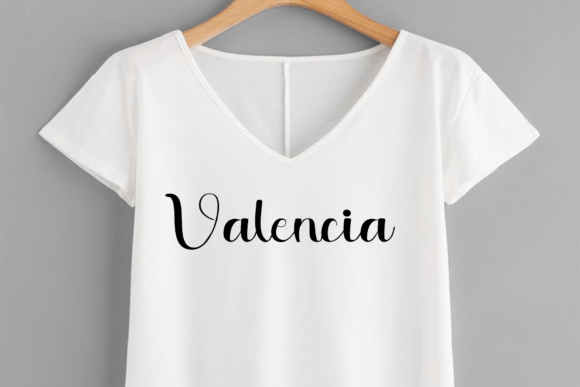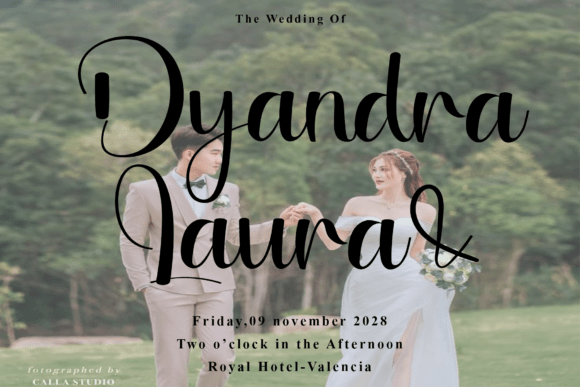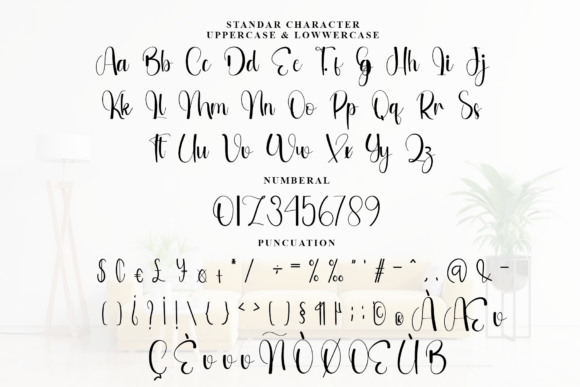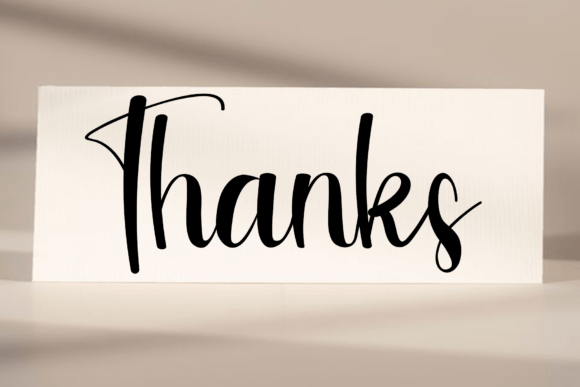
Introducing Hay Magnolia Font: A Bold and Sturdy Handwritten Typeface
Are you looking for a font that combines organic charm with a strong typographic presence? Look no further than Hay Magnolia Font, a bold and sturdy handwritten typeface that’s perfect for designers and crafters seeking a unique and professional look. In this article, we’ll explore the features and benefits of Hay Magnolia Font, and how it can elevate your branding, packaging, and design projects.
The Characteristics of Hay Magnolia Font
Hay Magnolia Font is a standout typeface that boasts thick, solid strokes with a distinct “bouncy” rhythm, giving it a friendly and approachable character. Its well-balanced proportions ensure it remains impactful even in busy designs, making it an excellent choice for a wide range of applications. As part of the “Unique and Professional” collection, Hay Magnolia Font is designed to bring a touch of handmade charm to your projects while maintaining a sophisticated and polished look.
Ideal Applications for Hay Magnolia Font
So, what types of projects are best suited for Hay Magnolia Font? This versatile typeface is perfectly suited for:
- Outdoor lifestyle branding: Hay Magnolia Font is an excellent choice for outdoor gear, apparel, and equipment brands that want to convey a sense of adventure and ruggedness.
- Organic product packaging: The font’s natural, handmade look makes it an excellent fit for organic food, skincare, and wellness products that require a more earthy and authentic aesthetic.
- Travel-themed graphics: Whether you’re designing a brochure, poster, or social media graphic, Hay Magnolia Font is an excellent choice for travel brands that want to evoke a sense of excitement and exploration.
- Rustic event invitations: Add a touch of handmade charm to your wedding invitations, party invites, or corporate events with Hay Magnolia Font’s unique and rustic flair.
Why Choose Hay Magnolia Font?
With so many fonts available, why choose Hay Magnolia Font for your next project? Here are just a few reasons:
- Unique and memorable: Hay Magnolia Font’s bold and sturdy design ensures it stands out from the crowd, making it an excellent choice for brands that want to make a lasting impression.
- Versatile: This typeface works beautifully in a variety of contexts, from digital designs to print materials, and can be used for both headlines and body text.
- Easy to read: Despite its bold and playful nature, Hay Magnolia Font remains highly legible, even at smaller sizes.
Tips for Using Hay Magnolia Font Effectively
To get the most out of Hay Magnolia Font, here are a few tips to keep in mind:
- Pair with contrasting fonts: Combine Hay Magnolia Font with a clean, sans-serif font to create visual interest and hierarchy in your designs.
- Experiment with colors: The font’s natural, earthy look pairs beautifully with earthy tones, but feel free to experiment with bold and bright colors to add personality to your designs.
- Use it sparingly: While Hay Magnolia Font is a stunning typeface, it’s best used sparingly to avoid overwhelming the senses. Use it for headlines, titles, or key messaging to create a lasting impression.
Hay Magnolia Font is a bold and sturdy handwritten typeface that brings a unique blend of organic charm and strong typographic presence to your designs. With its well-balanced proportions, distinct “bouncy” rhythm, and friendly character, this font is perfect for designers and crafters seeking a smart and adventurous handmade look. Whether you’re working on outdoor lifestyle branding, organic product packaging, travel-themed graphics, or rustic event invitations, Hay Magnolia Font is an excellent choice for adding a touch of personality and sophistication to your projects.